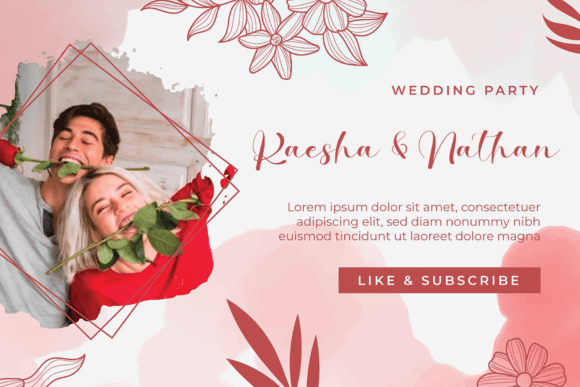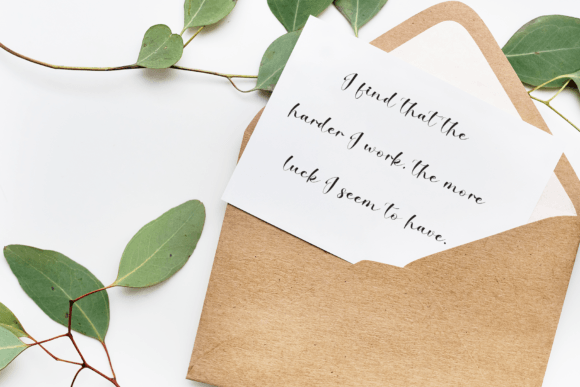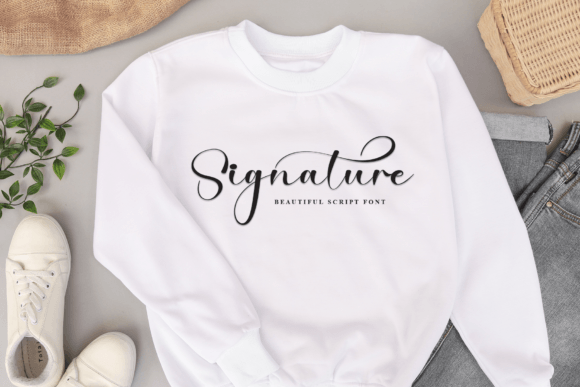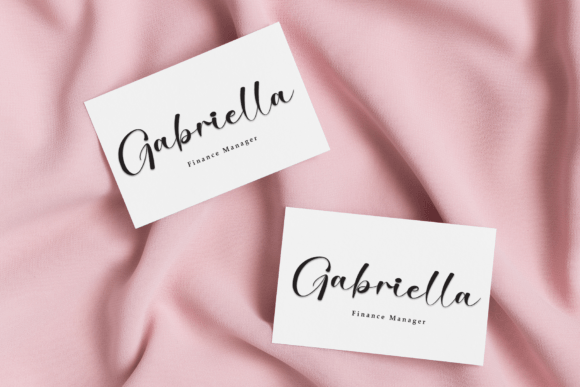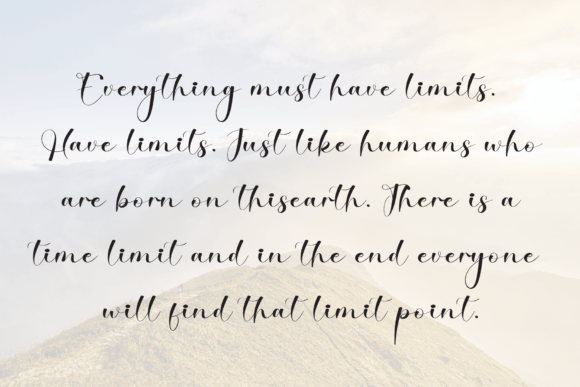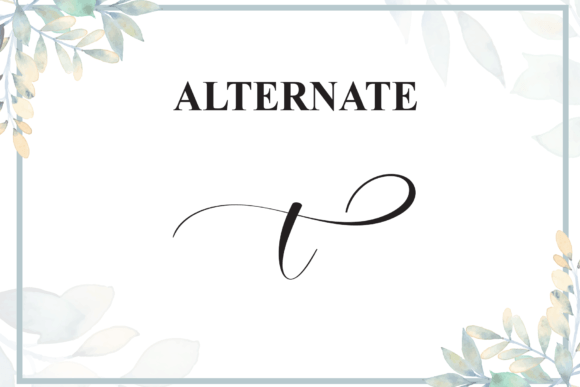
Enter the Creative Font, a beautiful and timeless handwritten font that’s perfect for creating eye-catching logos, branding, and quotes. With its unique and beautiful touch, every letter comes alive, making your design truly special. Whether you’re a seasoned pro or just starting out, this font is a valuable addition to your toolkit, offering endless possibilities for creativity and self-expression.
Creative Font Key Features
- Unique Characteristics: The Creative Font features a unique blend of modern and elegant design elements, including custom letterforms, swashes, and flourishes.
Designer Review: Creative Font
I’ve had the chance to work with the Creative Font, and I must say it’s a unique and eye-catching addition to any design project. ✨ Here are some things that stood out to me:
- The font’s bold and playful personality really shines through, making it perfect for creative and artistic projects.
- The font’s customization options are extensive, allowing designers to tweak and refine the look to suit their specific needs.
However, I do have some reservations about the font’s limitations:
- ⚠️ The font’s boldness can sometimes come across as overwhelming, making it difficult to read at smaller font sizes.
- ⚠️ The font’s customization options, while extensive, can be overwhelming for beginners and may require some trial and error to get right.
Overall, I’d give the Creative Font 4 out of 5 stars. While it’s not without its limitations, I believe its unique personality and customization options make it a valuable addition to any designer’s toolkit. With some careful planning and consideration, I think it could be a real game-changer for the right projects.
For best results, use Creative Font for headings and titles to add visual appeal to your designs.